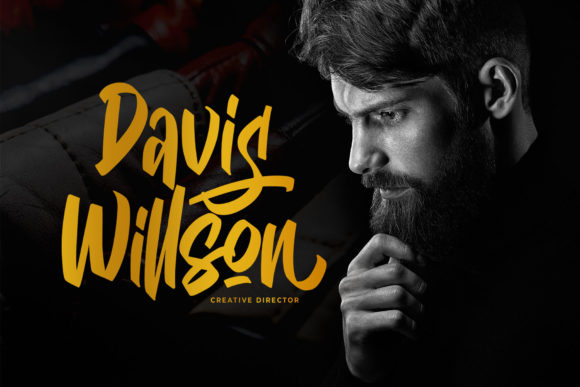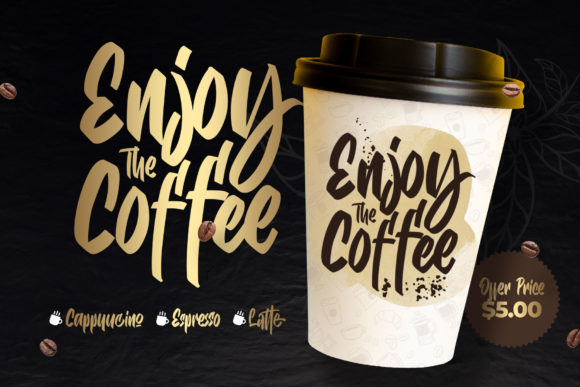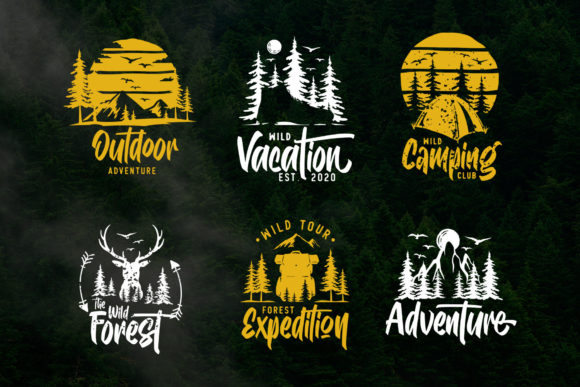
Introduction to Rusthack Font
As a designer, have you ever been stuck trying to find the perfect font to elevate your creative project? The search can be daunting, especially when you’re looking for something that truly stands out. I recall a particular moment when I stumbled upon the Rusthack Font, and it was love at first sight – or rather, love at first letter.
The Rusthack Font is more than just a pretty face; it’s a game-changer for designers who crave something unique and high-quality. With its quirky charm and transparent background, this font is a design resource like no other. And the best part? It’s available for a free download, making it accessible to designers of all levels.
Whether you’re working on a branding project or a creative campaign, the Rusthack Font is sure to add an extra layer of sophistication and personality to your design. Its versatility makes it a valuable addition to any designer’s toolkit, and we can’t wait to dive deeper into what makes this font so special.
Key Features of Rusthack Font
- High-quality font with transparent background, ideal for use in vector graphics and digital art.
- Unique, hand-drawn style with a distressed texture, adding a touch of creativity to any design project.
- High-resolution font, suitable for use in large formats and high-quality printing.
- Perfect for use in various design applications, including logos, typography, and graphic design projects.
- Easy to customize and modify, allowing designers to tailor the font to their specific creative project needs.
Honest Review: Rusthack Font
I recently stumbled upon the Rusthack Font while searching for a unique design resource for a creative project. As a designer, I appreciate having access to high-quality fonts that can elevate my work.
The Rusthack Font offers a lot of potential for creative projects, and its free download makes it an attractive option for designers on a budget. The font comes with a transparent background, which is perfect for creating eye-catching graphics and designs.
What works well about the Rusthack Font is its versatility and wide range of styles. Here are some of its key features:
- Transparent background for easy use in graphics and designs
- Wide range of styles to suit various design needs
However, I did encounter some limitations with the font, particularly its limited font sizes and styles. For example:
- Limited font sizes, which can be restrictive for certain design projects
- Some styles may not be compatible with certain software or platforms
Overall, I’d say the Rusthack Font is a solid design resource that’s worth exploring. While it may have some limitations, its high-quality design and versatility make it a great option for designers looking for a unique and free download.
Rusthack Font
Getting the Most Out of Rusthack Font
To get the most out of the Rusthack Font, experiment with different font sizes, colors, and combinations to create a unique design that reflects your brand or project. The transparent background feature allows for endless design possibilities.
The Rusthack Font is ideal for a variety of projects, including logos, business cards, brochures, presentations, and reports. Its high-quality design and transparent background make it a versatile design resource for any creative project.
No, the Rusthack Font does not have a transparent background. It is a solid font designed for use on any background. However, you can use a design tool or software to create a transparent background effect if needed.